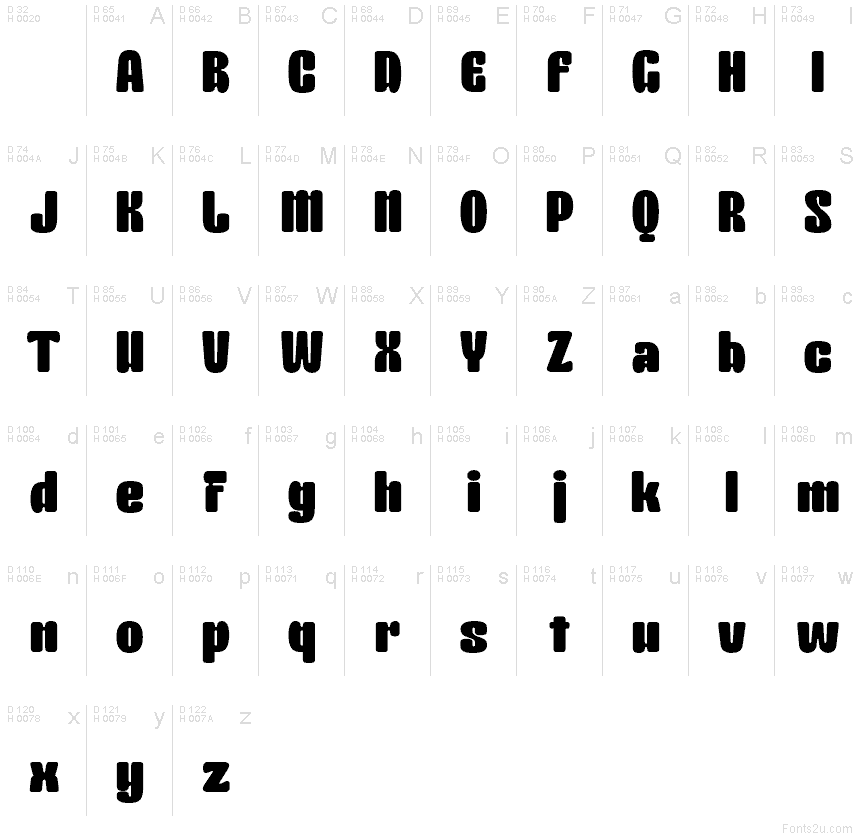
CS Bruce Regular Demo
CS Bruce font by Craft Supply Co. is a free bold rounded display font that fixes a classic headache: getting big, shouty type to feel friendly instead of harsh. Its chunky silhouettes, swollen curves, and cushioned corners deliver impact without barking, while the tight rhythm and compact proportions keep headlines dense and legible. Letters look almost pressed from soft rubber—full, inky, and confident—so your message lands with weight and warmth.
Using CS Bruce, you can punch up posters, food packaging, café menus, event flyers, YouTube thumbnails, stickers, and storefront signage. This free font shines at large sizes with a touch of extra letterspacing for breath. For a clean contrast, pair it with a neutral grotesk or a light condensed sans in body copy.